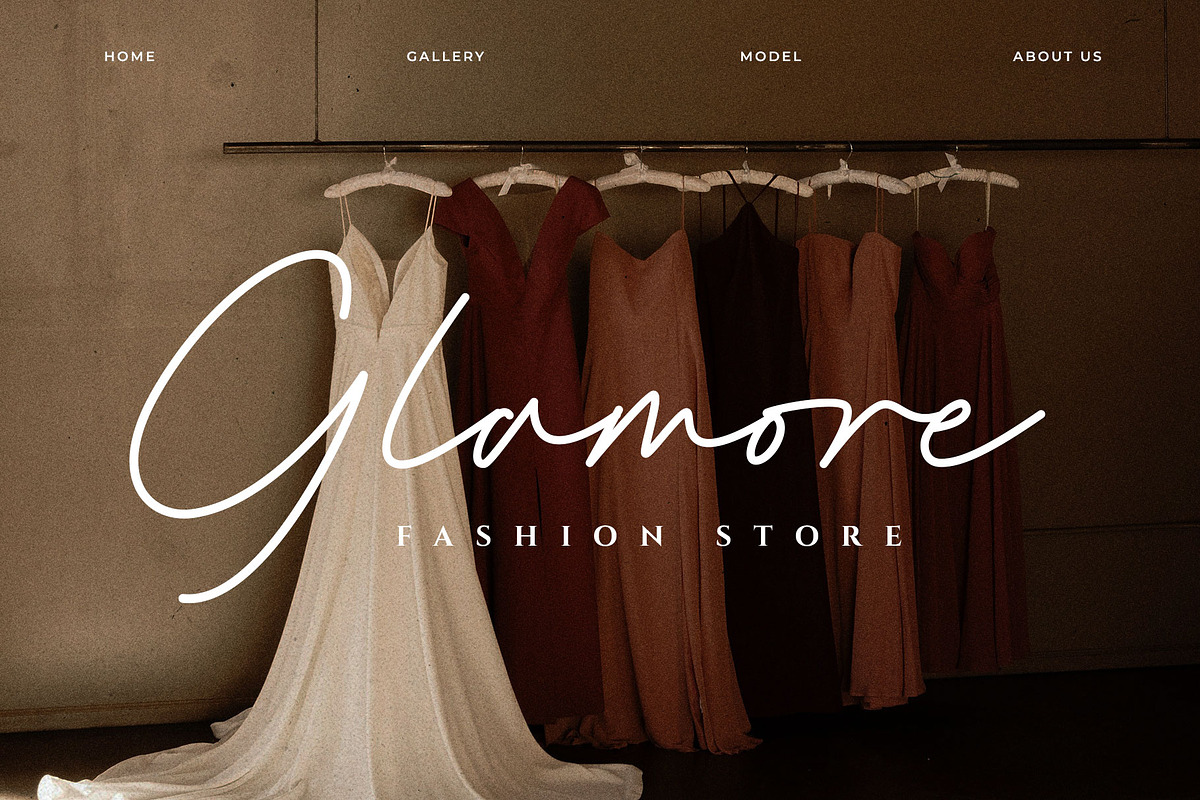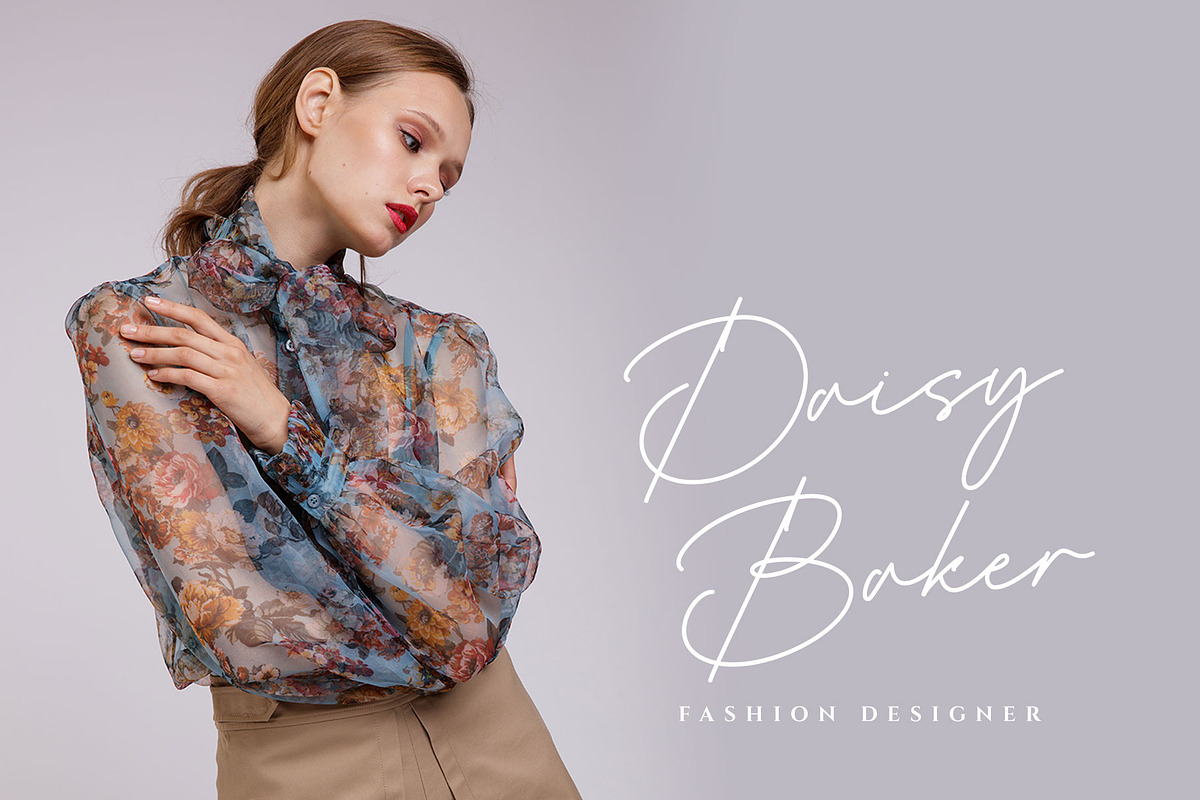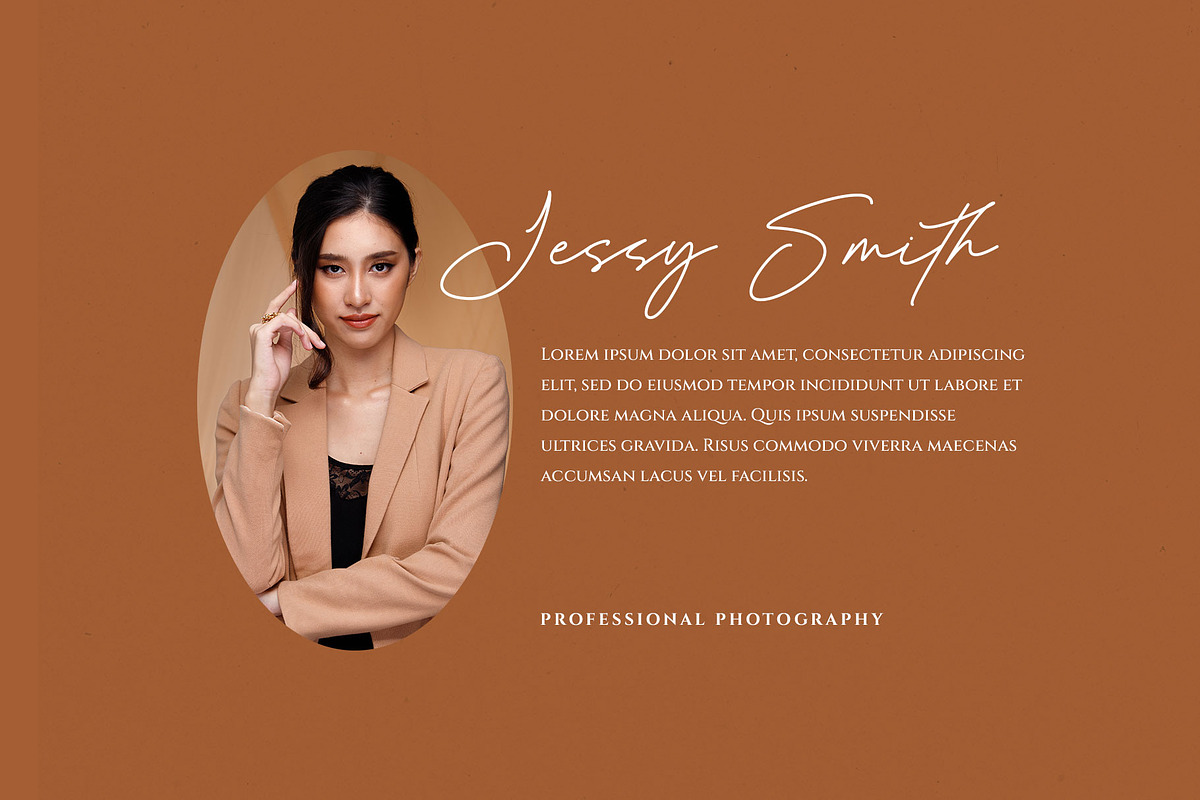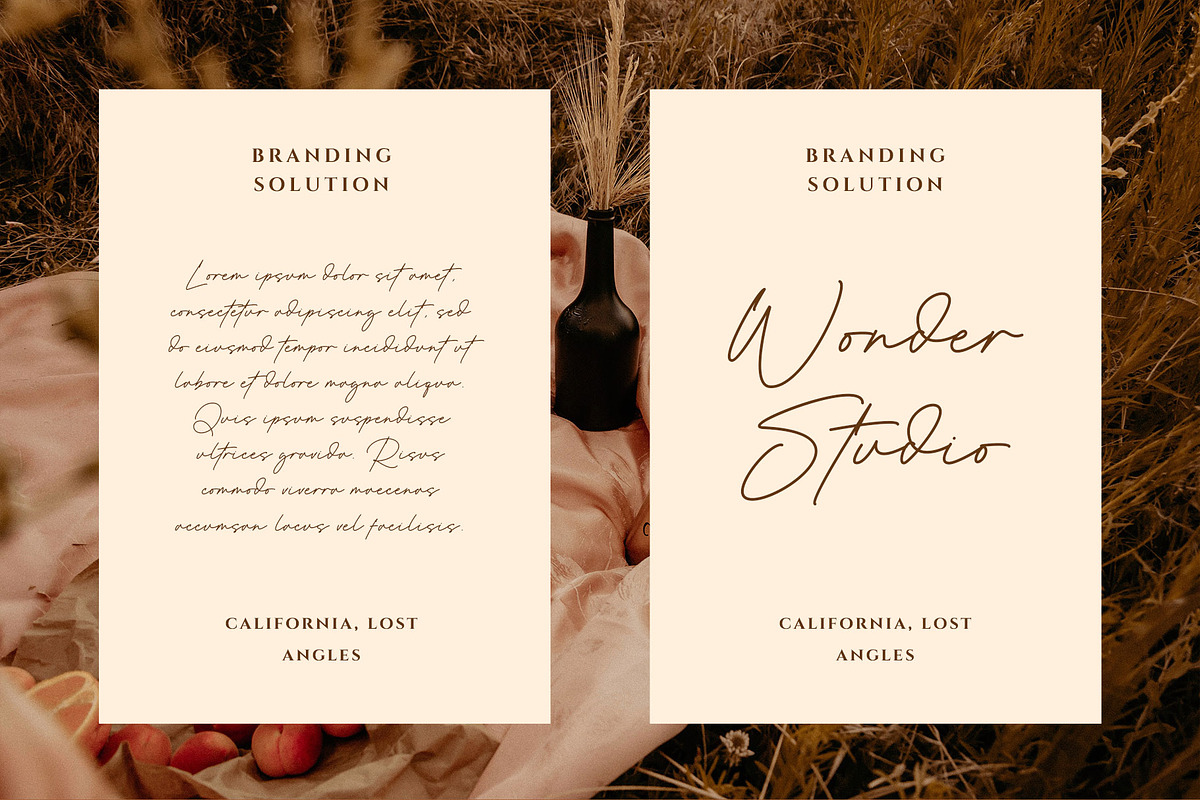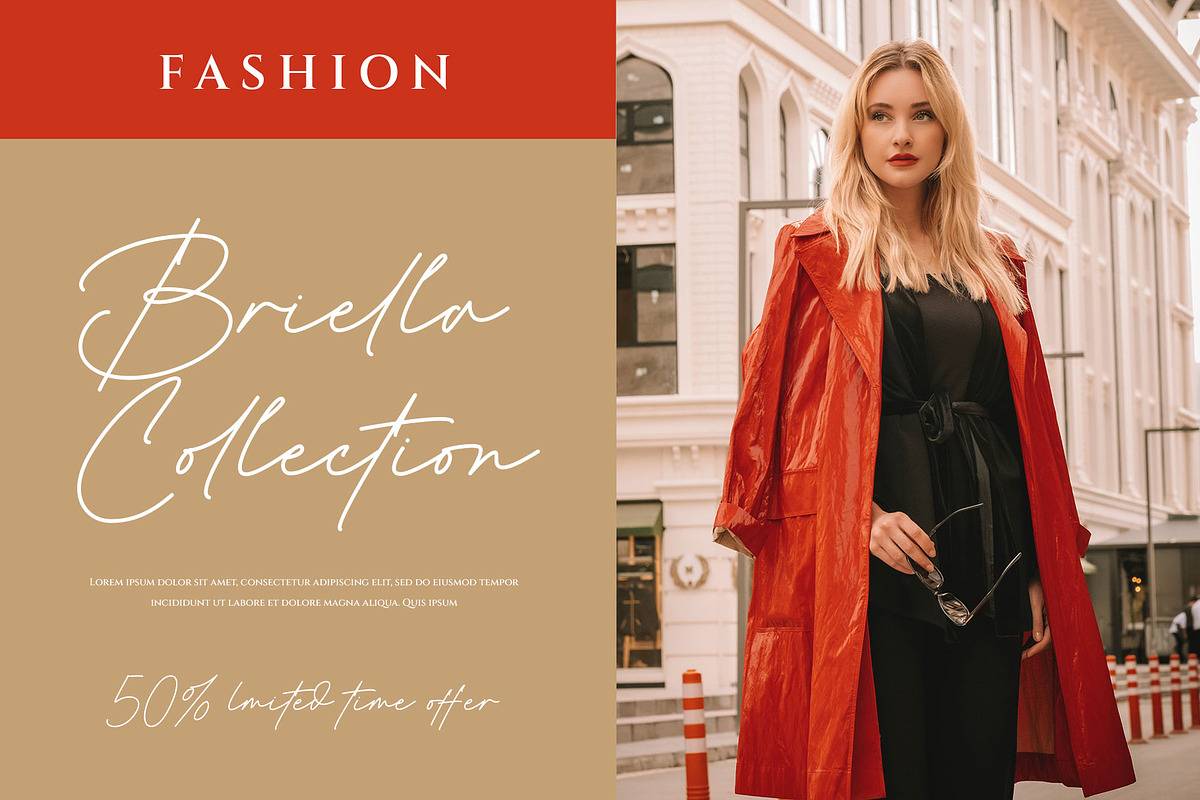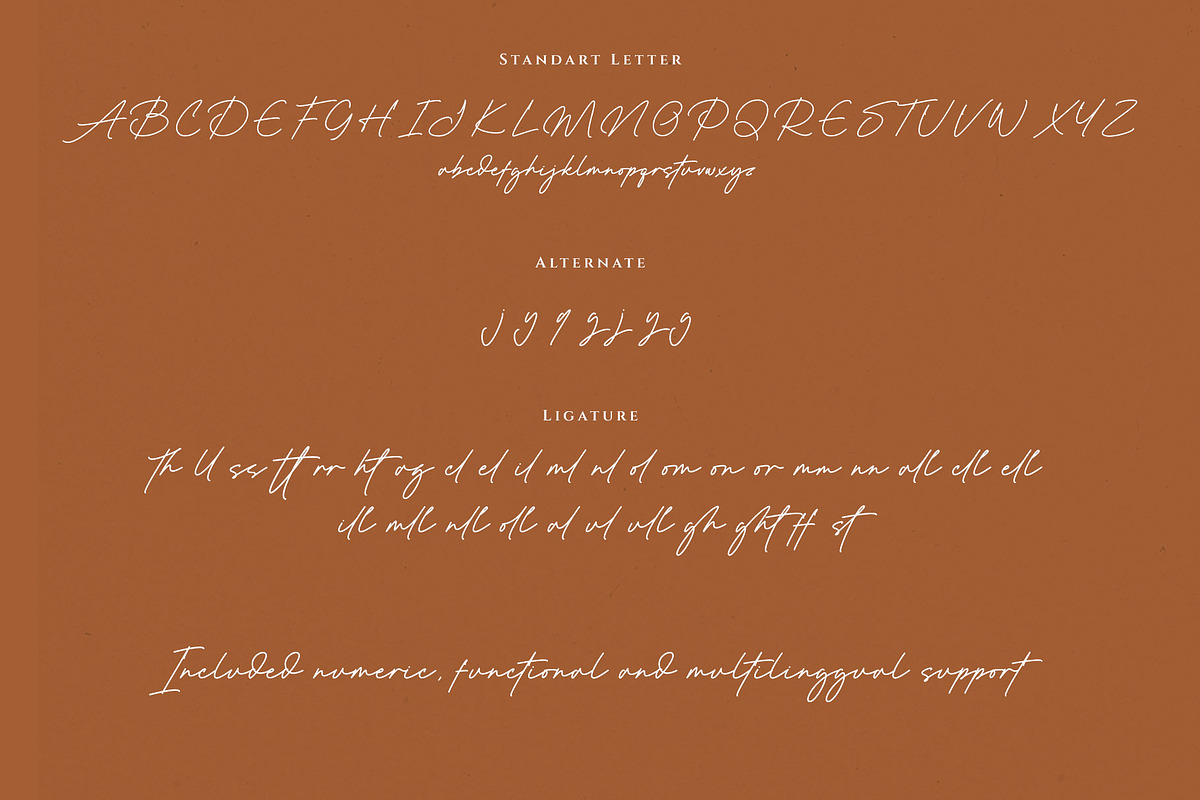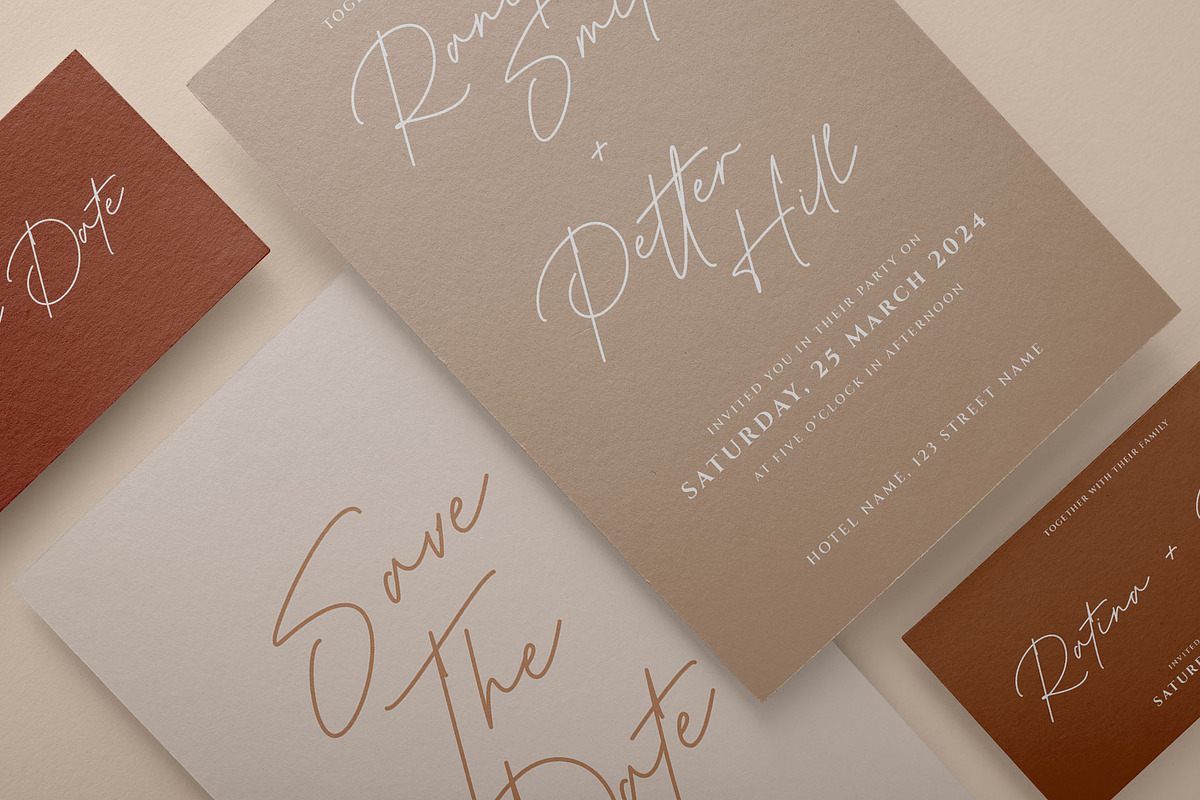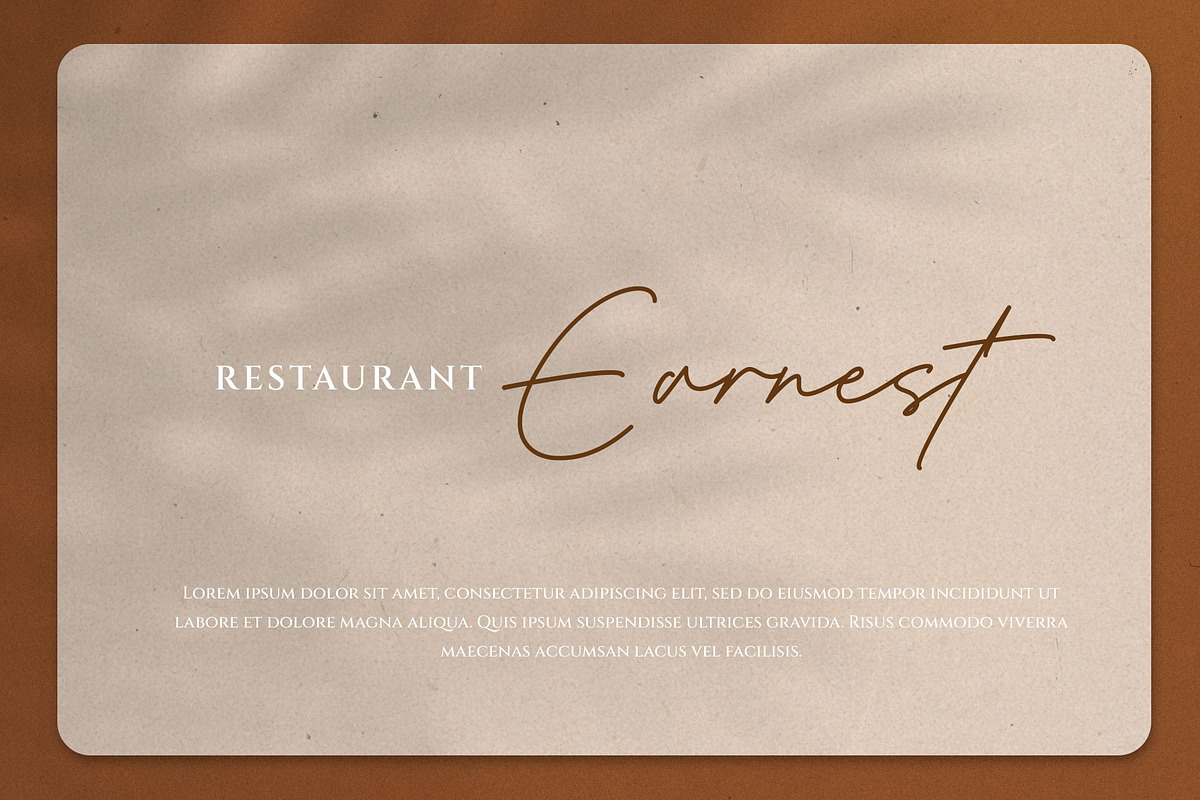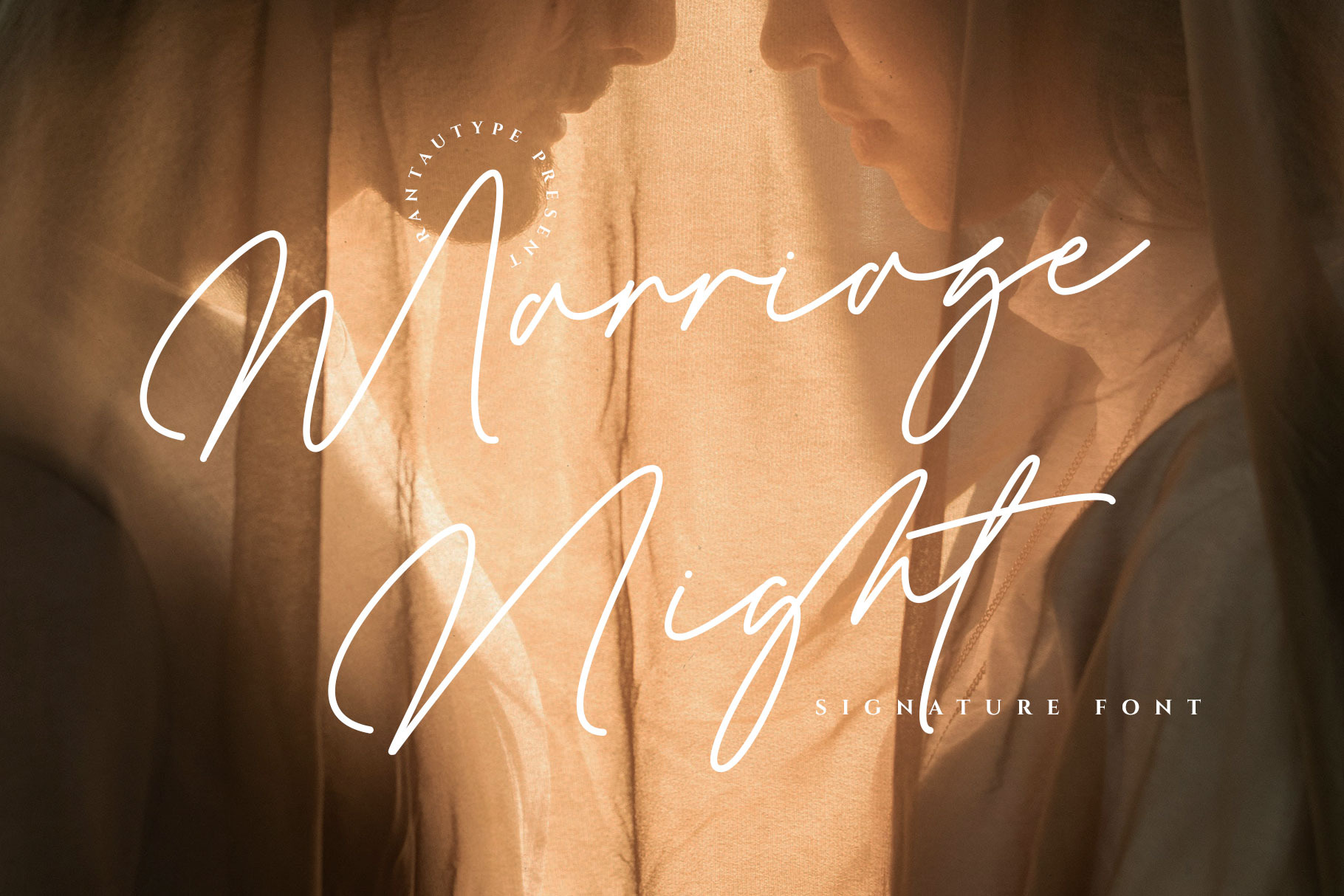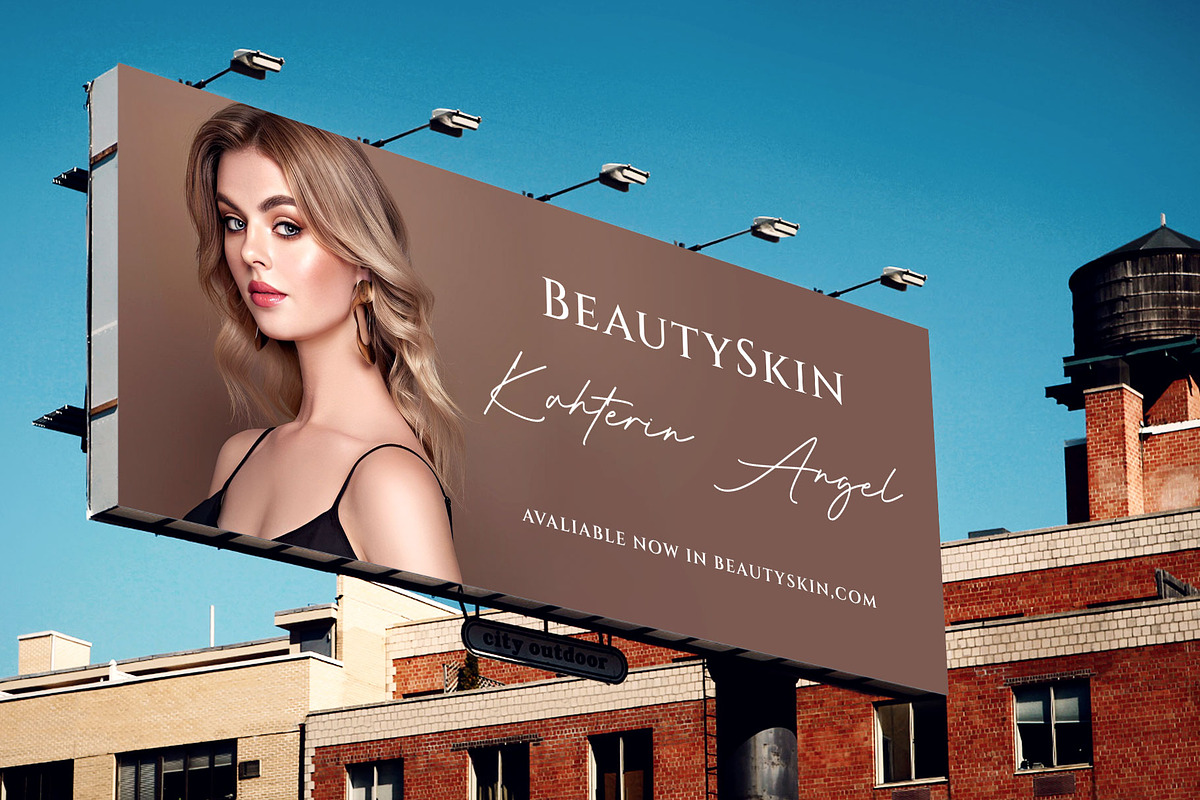
Marriage Night Signature Font
Experience elegancy in a visual form for your design with the marriage night font. Inspired by elegant brand and stylish concept, targeting a luxury-forward mentality with subtle curves to make it elegant and fashionable. Marriage night come with alternate, ligature and already support multingual character.
Marriage Night is a beautiful choice for any creative endeavor, chic, lifestyle design such as logos, title, watermark on photography, cover, branding, display and magazine, wedding event, corporate brand, quotes, album cover, business card, business project and many other design project. Marriage Night here to elevate you workl!!!
- Standar character A-Z and a-z
- Ligature and alternate
- Multilinggual Character support